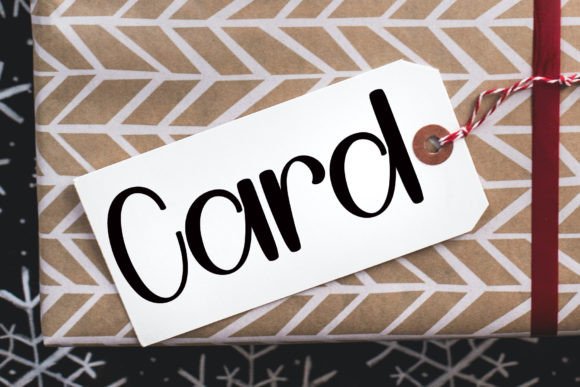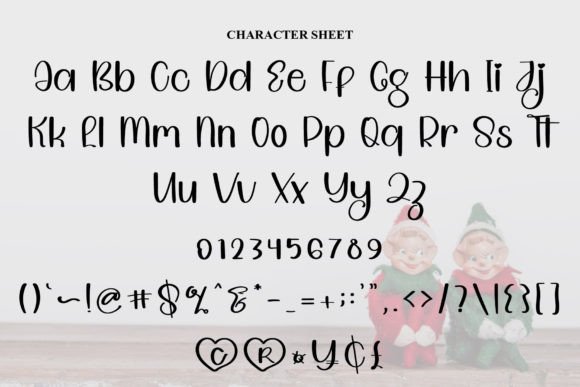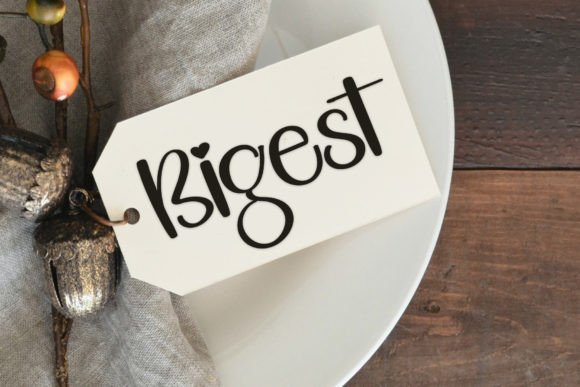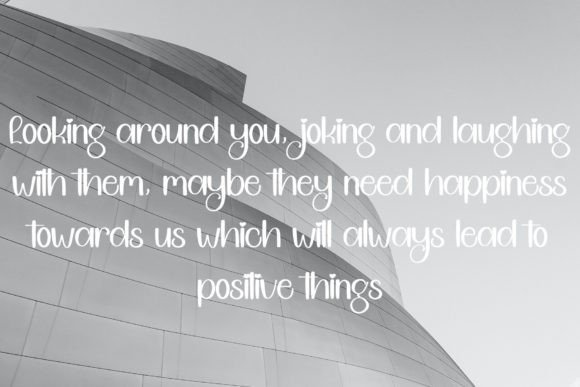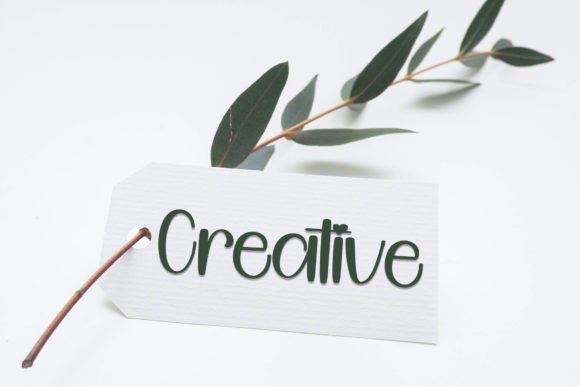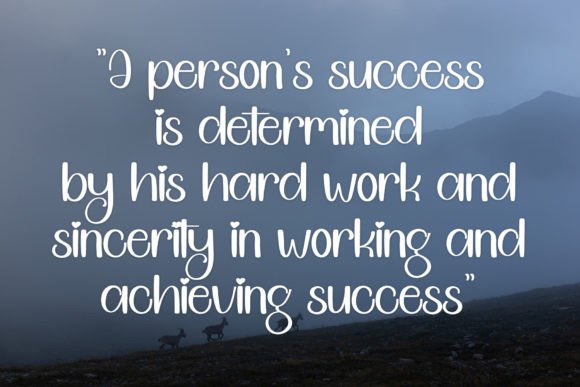
For designers looking to add a touch of whimsy and romance to their holiday projects, I’ve got just the thing: the enchanting Holiday Font. This versatile script font is perfect for everything from greeting cards to headlines, and its soft, handwritten feel is guaranteed to make your designs feel extra special. Whether you’re designing for a client or just want to create something special for your loved ones, the Holiday Font is a valuable addition to any designer’s toolkit.
Holiday Font Key Features
- Unique Characteristics: The font features a festive and playful design, with intricate details and ornaments, making it ideal for holiday-themed projects and designs.
Holiday Font Review
As a designer, I was excited to dive into the Holiday Font and see what it had to offer. Overall, I’d say it’s a solid addition to any holiday-themed project, but with some caveats.
- Unique and festive aesthetic: The Holiday Font has a clear, playful vibe that’s perfect for winter-themed designs.
- Good range of weights and styles: With several font weights and styles to choose from, you can customize your design to suit your needs.
- High-quality rendering: The font renders well on a variety of devices and screen sizes.
- Limited compatibility: I experienced some issues with the font rendering correctly in certain browsers and operating systems.
- No extensive language support: The font only supports a limited range of languages, which may be a concern for multilingual designs.
While the Holiday Font has its strengths, its limitations hold it back from being a top choice for all designers. If you’re looking for a fun, festive font for a specific project, it might be worth considering. However, if you need a more versatile font with extensive language support, you may want to look elsewhere.
Tips for Getting the Most Out of Holiday Font
Use Holiday Font for festive and seasonal projects, such as holiday cards, gift tags, and party invitations. Experiment with different font sizes, colors, and combinations to create a unique and eye-catching design.
Holiday Font is perfect for:
– Holiday cards and invitations
– Gift tags and wrapping paper
– Party decorations and signage
– Seasonal social media graphics
Alternatives to Holiday Font for Designers
Copperplate Script
Copperplate Script is a elegant and classic script font perfect for creating a sophisticated and luxurious look. It’s ideal for wedding invitations, formal greeting cards, and other special occasions. Copperplate Script is a more refined and formal alternative to Holiday Font, making it suitable for high-end designs.
Brush Script MT
Brush Script MT is a popular script font known for its playful and informal feel. It’s great for creating a casual and friendly atmosphere, making it perfect for social media graphics, advertising, and editorial designs. While Brush Script MT is more casual than Holiday Font, it still maintains a level of sophistication and elegance.